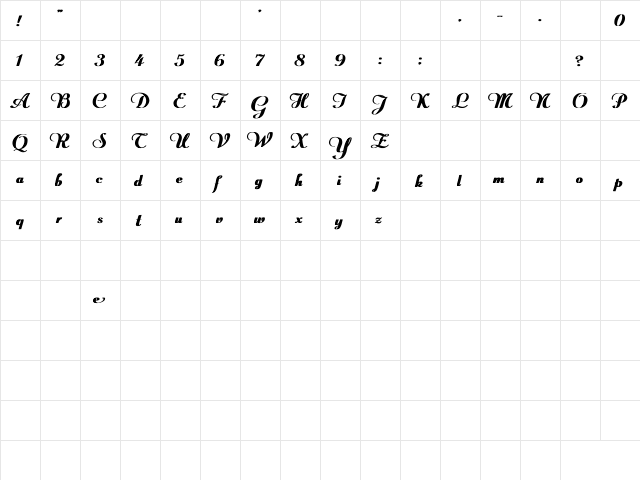
Rechtman Bold Plain
Design Context for Rechtman Bold Plain Typeface
Rechtman Bold Plain takes a measured approach to typography — its balanced proportions and neutral character make it a reliable workhorse for both digital and print work. Its bold stroke weight gives it real presence on the page.